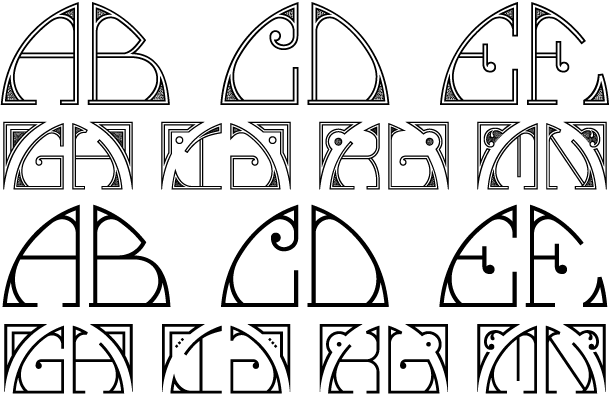
MFC Glencullen Monogram
About MFC Glencullen Monogram
The inspiration source for Glencullen Monogram is an eccentric hand-drawn letterset from a vintage embroidery publication combining two quarter circle letterforms to create a semicircular monogram. Originally intended to adorn handkerchiefs, it has many…